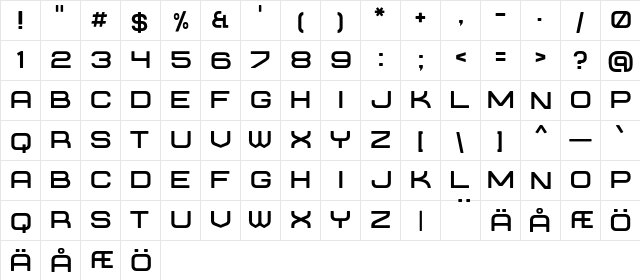
Requesta Regular
| Foundry | Joonas Tielinen |
Design Context for Requesta Typeface
Requesta offers clean, dependable letterforms without strong stylistic allegiance, making it a practical choice for designers who need flexibility.
Pro Tip: Pair Requesta with a font of contrasting weight or personality to build a more expressive typographic hierarchy.